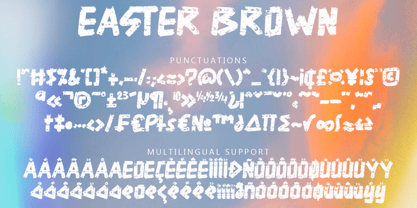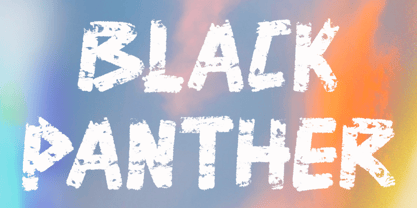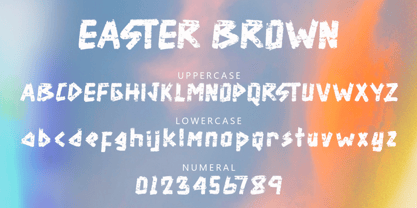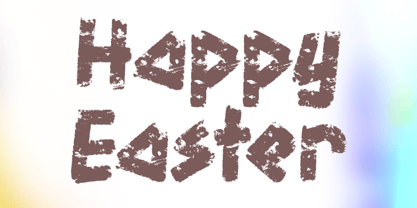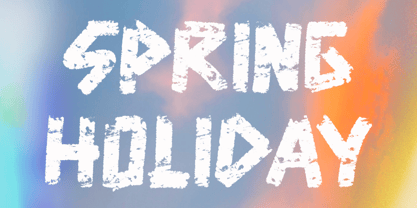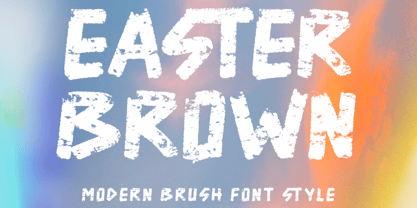
Easter Brown
by Yoga Letter
The Easter Brown Font Family was designed by Isroni Yoga Prasetya and published by Yoga Letter. Easter Brown contains 1 styles. More about this family
"Easter Brown" is an elegant and quality brush font. This font is equipped with uppercase, lowercase, numeral, punctuations and multilingual support. It is suitable for easter, holiday, spring, summer, halloween, movie titles, comic titles, stickers, posters, banners, prints, branding and others.
Designers: Isroni Yoga Prasetya
Foundry: Yoga Letter